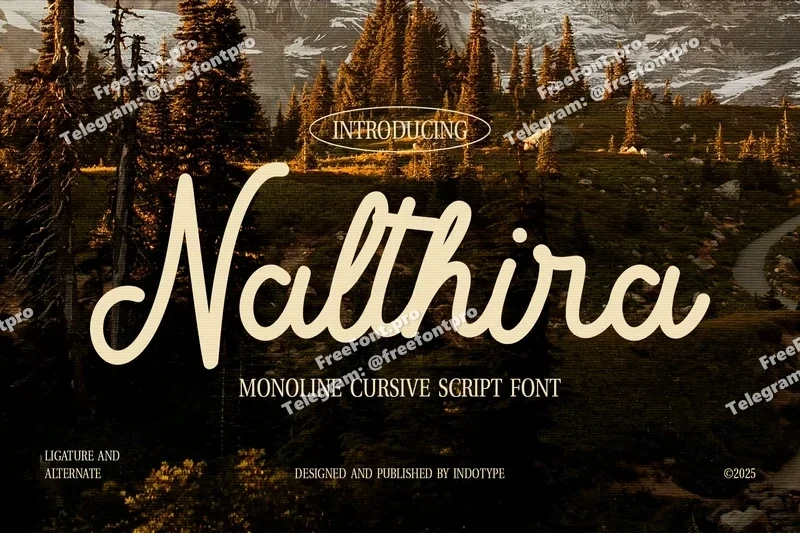
Nalthira – Monoline Cursive Script Font
Nalthira is a monoline cursive script font designed to bring warmth, elegance, and flow to your projects. With its smooth, single-line strokes and naturally connected letters, Nalthira captures the charm of traditional cursive handwriting while maintaining modern clarity. Equipped with ligatures and alternates, this typeface offers flexibility and stylistic variety, allowing you to create unique wordmarks and expressive lettering. Its balance of casual and refined makes Nalthira a perfect choice for logos, wedding invitations, personal branding, packaging, greeting cards, lifestyle products, and editorial designs. Published by Indotype in 2025, Nalthira supports multilingual characters, making it a versatile companion for both local and international projects. Whether for elegant typography or personal creative expressions, Nalthira is crafted to leave a lasting impression.
Regular & Italic